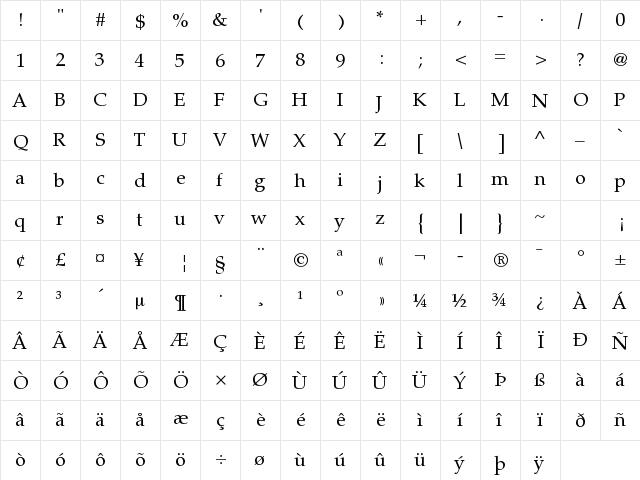
Bahij Nazanin Regular
| Foundry | Tiro Typeworks for Adobe Systems Incorporated. |
| Designer | Tim Holloway (Arabic) and Robert Slimbach (Latin) |
Design Context for Bahij Nazanin Typeface
Bahij Nazanin takes a measured approach to typography — its balanced proportions and neutral character make it a reliable workhorse for both digital and print work.